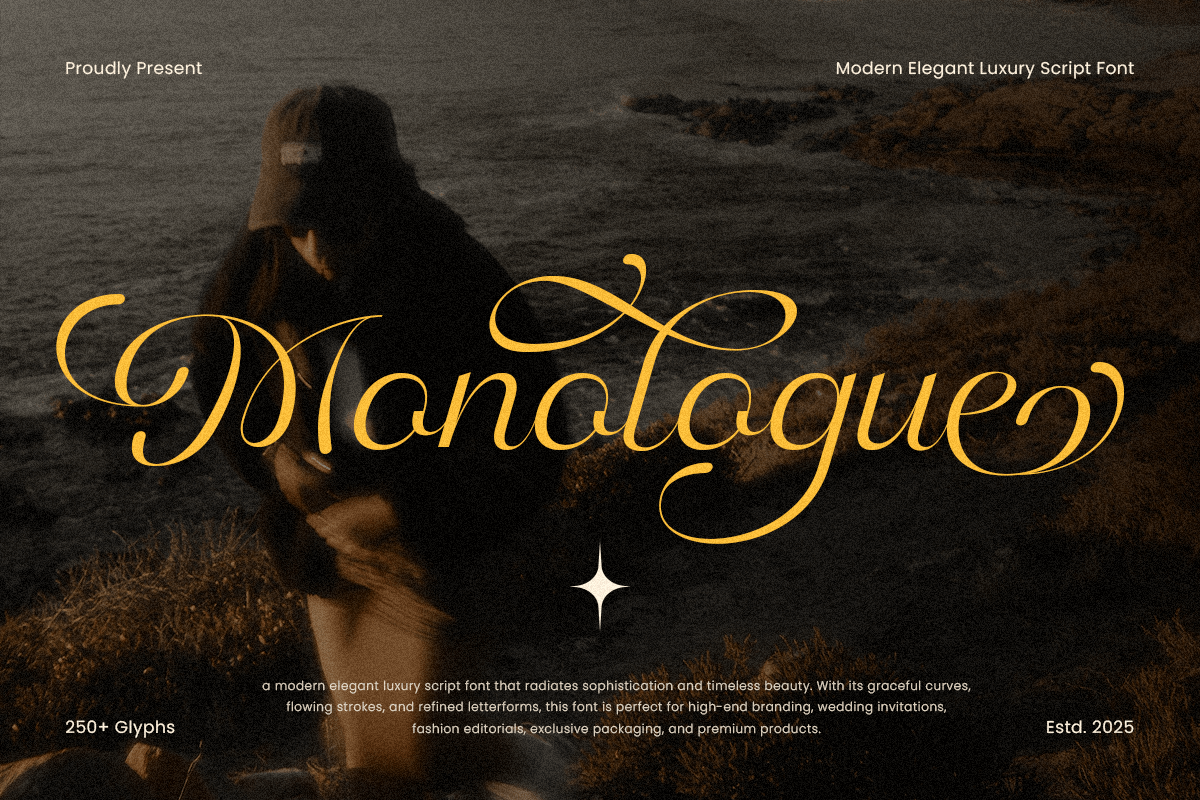
Monologue
-Modern Elegant Luxury Script FontMonologue is a modern elegant luxury script font crafted to deliver a refined, high-end feel with smooth strokes and confident, stylish flow. Its signature-inspired letterforms create a sophisticated tone that instantly elevates typography with charm and polish.
Perfect for luxury branding, boutique logos, fashion editorials, wedding stationery, and premium packaging, Monologue brings a graceful presence to headlines, product labels, invitations, social media visuals, and upscale print layouts. The elegant script character makes it ideal for beauty, jewelry, fragrance, and lifestyle brands.
Whether you’re building a timeless brand identity or designing romantic event materials, Monologue helps your typography look exclusive, modern, and beautifully memorable.
Monologue – Modern Elegant Luxury Script Features
Modern luxury script style with elegant movement
Signature-inspired letterforms for premium branding
Ideal for logos, wedding suites, invitations, and packaging
Beautiful for fashion editorials, beauty brands, and boutique visuals
Great for both print materials and digital design needs
OpenType features for creative typographic flexibility